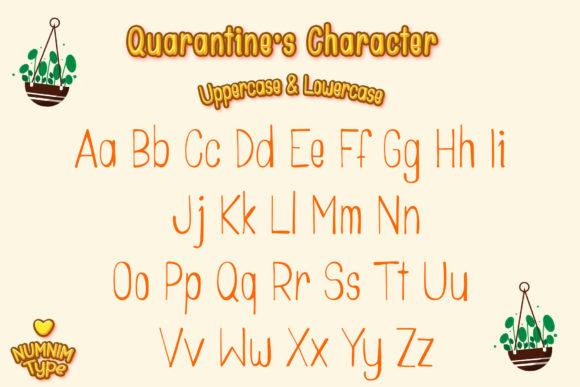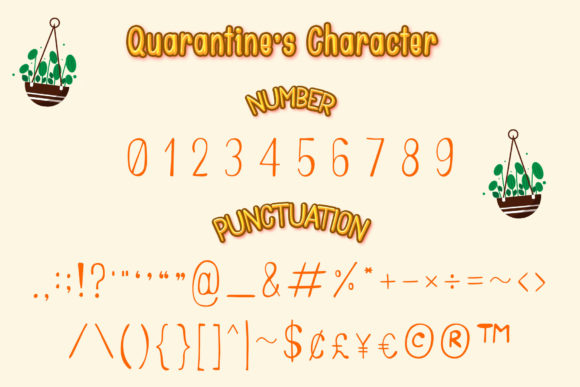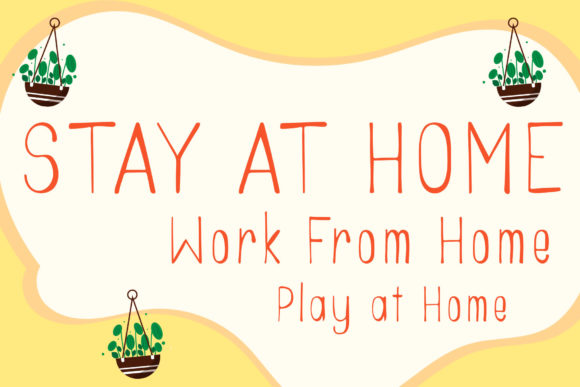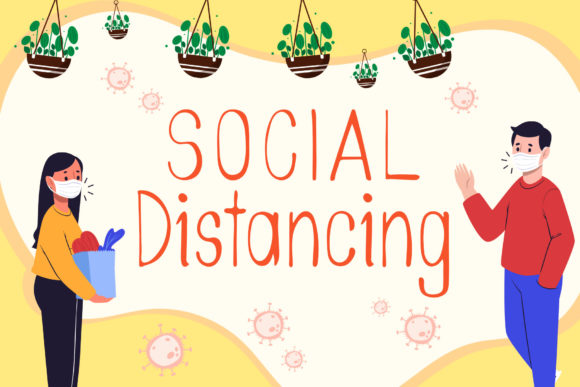
Introduction to Quarantine Font
Quarantine embodies fun, quirkiness and authenticity.
This enchanting handwritten font will turn any creative idea into a true standout .
Key Features of Quarantine Font
Why Choose Quarantine Font?